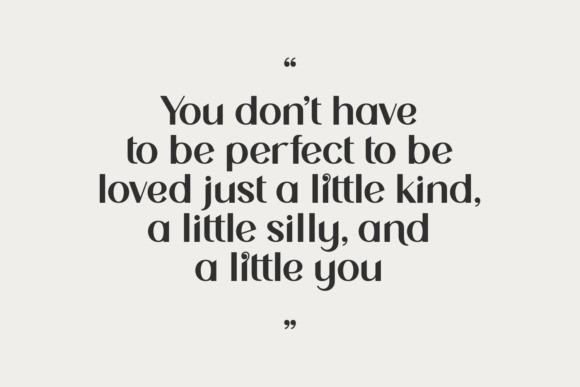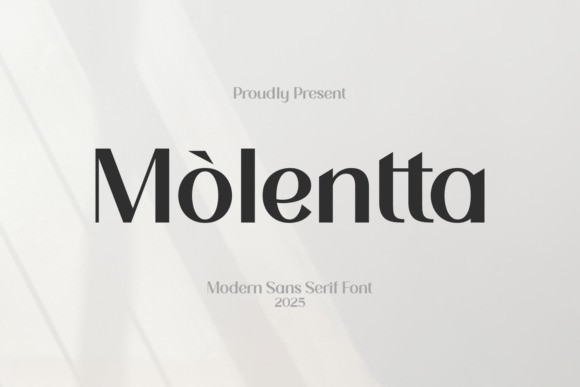
Molentta Font
Molentta Font a modern sans serif font from the year 2025. The font is characterized by its sophisticated, high-contrast strokes, blending minimalist design with a touch of classic elegance, making it suitable for high-end branding and editorial use.